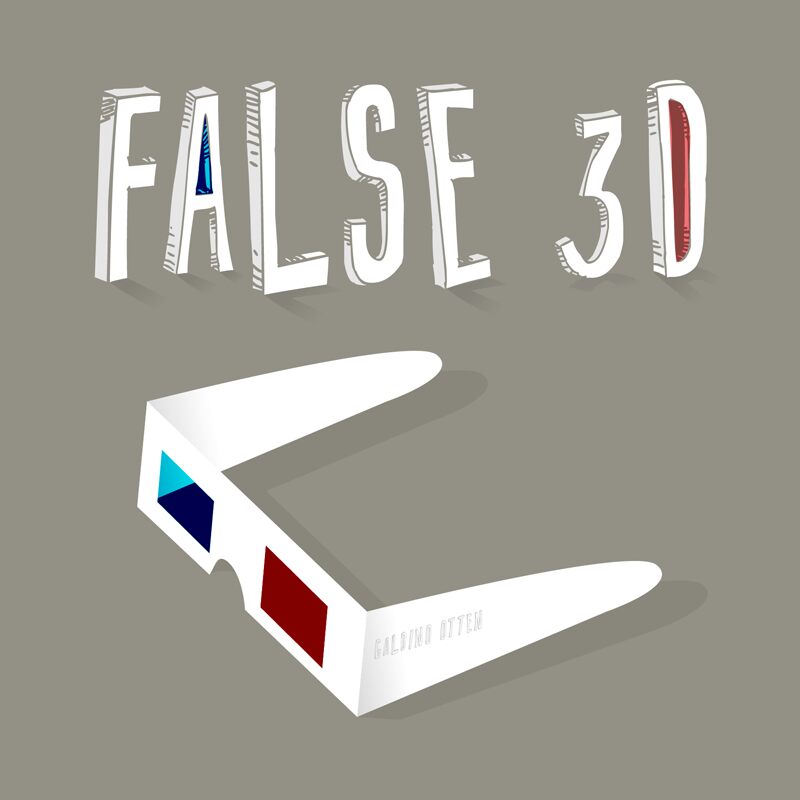
False 3d
False 3d, designed by Galdino Otten Fonts, is a playful and dynamic display font that instantly captures attention with its 3D cartoon style. The clever use of shading and angles creates an illusion of depth that brings each character to life, making it ideal for titles and headlines that need to pop off the page or screen.
Despite its extra-condensed width, False 3d maintains readability, allowing designers to use it in a variety of creative projects without sacrificing impact. Its aesthetic appeal lies in the harmonious balance between the boldness necessary for a display font and the whimsical charm of cartoon-inspired typefaces.
Whether used in branding, poster design, children's books, or digital media, False 3d offers a fresh and engaging visual experience. Its distinctive look will not only complement your creative projects but also add an element of fun that resonates with audiences across all ages.
Despite its extra-condensed width, False 3d maintains readability, allowing designers to use it in a variety of creative projects without sacrificing impact. Its aesthetic appeal lies in the harmonious balance between the boldness necessary for a display font and the whimsical charm of cartoon-inspired typefaces.
Whether used in branding, poster design, children's books, or digital media, False 3d offers a fresh and engaging visual experience. Its distinctive look will not only complement your creative projects but also add an element of fun that resonates with audiences across all ages.